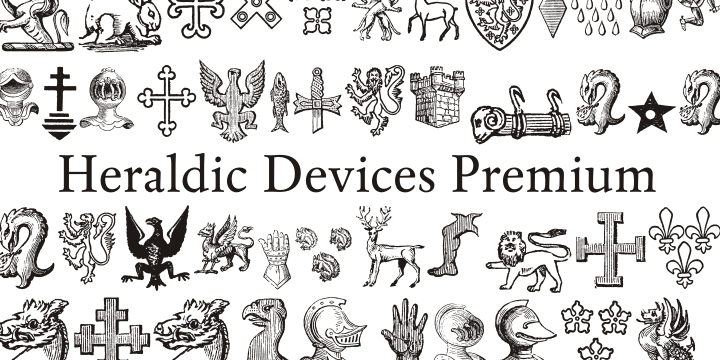
Heraldic Devices Premium
by Intellecta Design
The Heraldic Devices Premium Font Family was designed by Paulo W and published by Intellecta Design. Heraldic Devices Premium contains 2 styles and family package options.
A collection of shields, crowns and heraldry designs. Represents heraldry devices, Spanish city seals, world nations seals, coats of arms, helms, crowns, crests etc.
About Intellecta Design
Intellecta Design is a Brazilian typefoundry interested in typographical research and revivals of all forms of ancient typefaces and handwriting styles. It searches historical churches, museums, antiquaries and similar institutions to develop fonts from old books and documents, and has a large collection of rare catalogues and books from XVI to XIX century to help in your studies to digitize lost fonts and non-usual handwriting script models. This kind of research is not common in Brazil. In addition, its design team also works to create new and modern typefaces for all applications. Intellecta Design claims to be the creator and owner of the largest typeface library in Latin America.